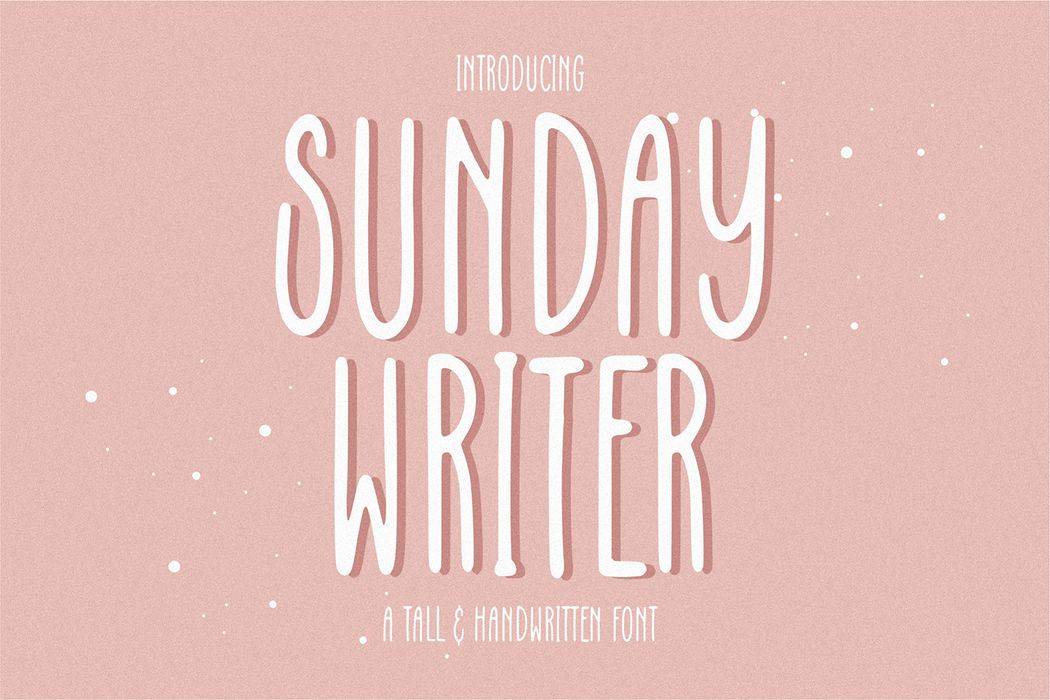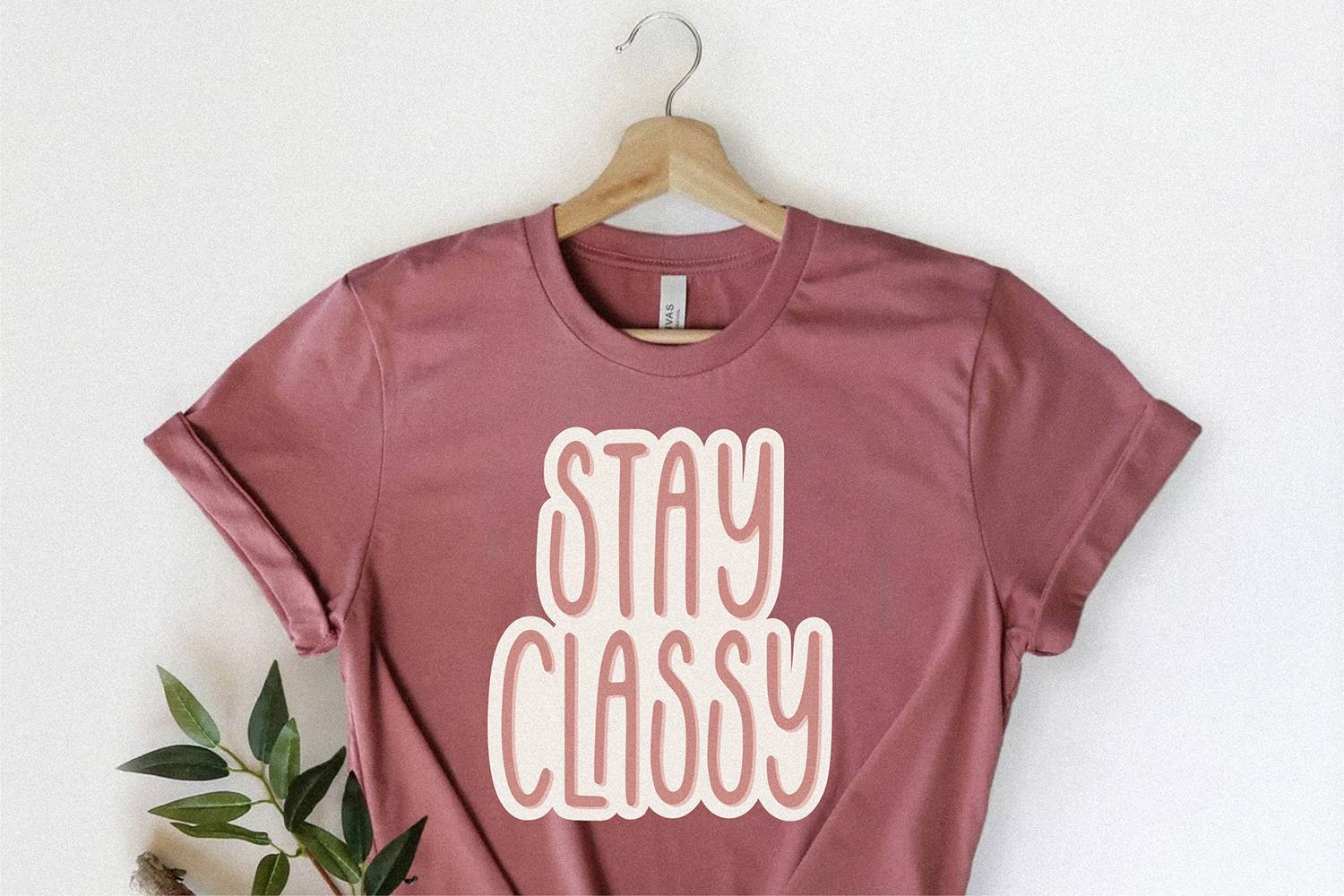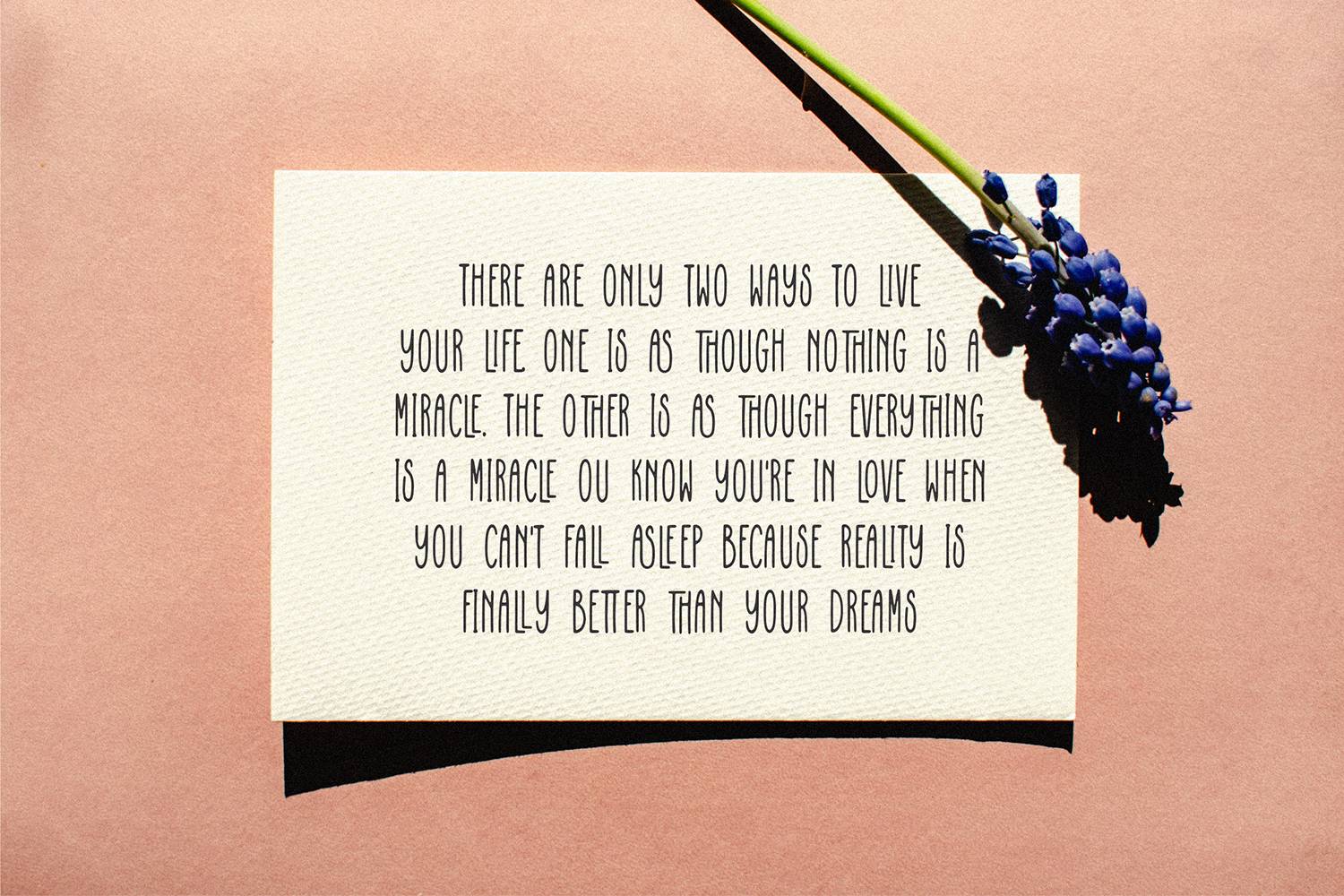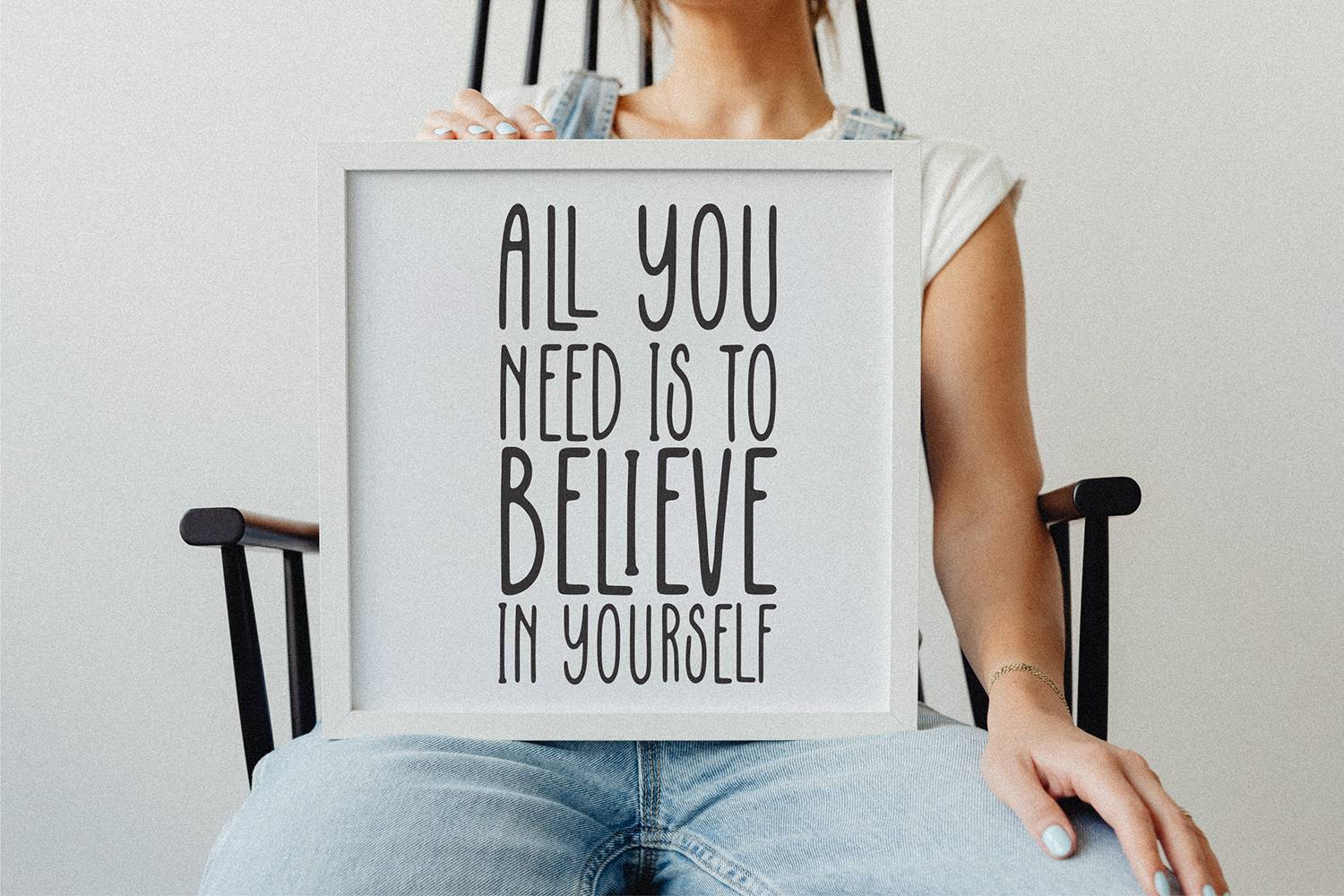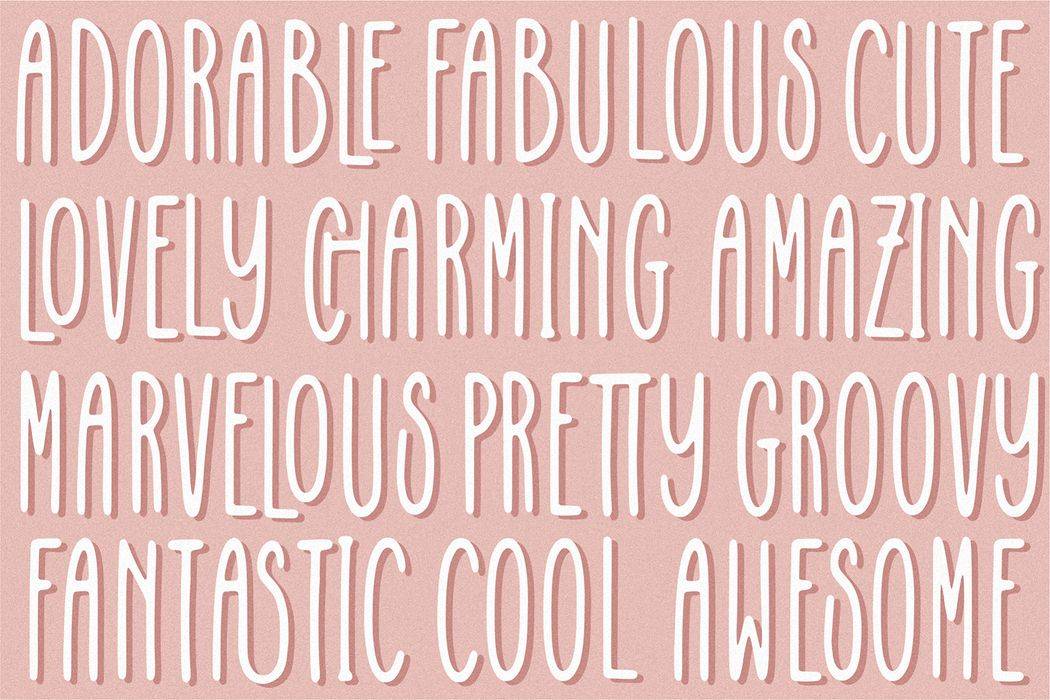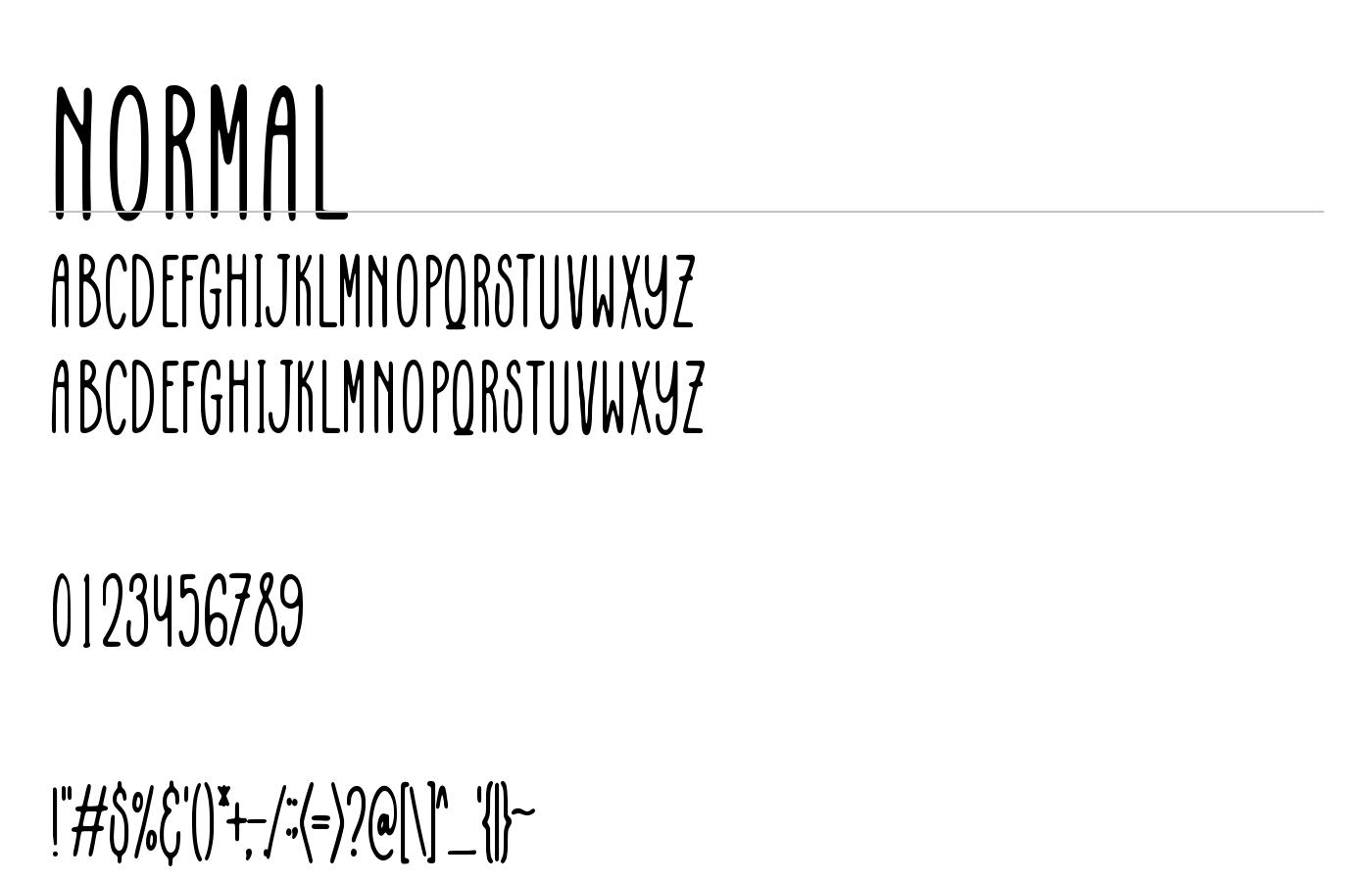
Sunday Writer is a tall, narrow sans serif font with a playful and hand-drawn feel. Its thin, consistent strokes and slightly irregular letterforms make it perfect for adding a whimsical, casual touch to headlines, invitations, or creative projects. This font works well where a unique, friendly style is needed without sacrificing readability.
Sunday Writer Font
About Sunday Writer Font